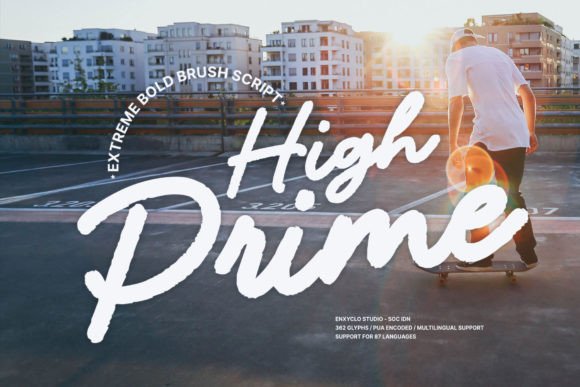
High Prime: A Bold Brush Font for Daring Designs
If you're looking for a font that commands attention and adds a modern edge to your work, High Prime might be exactly what you need. This brush display font is more than just a stylish choice—it's a powerful tool that can elevate your creative projects, branding efforts, and digital presence. With its confident, assertive look, High Prime is ideal for anyone who wants to make a strong visual statement.
When and Why to Use High Prime
High Prime shines in situations where boldness matters. Whether you're designing a logo, creating a social media post, or working on a website header, this font can help you stand out. Its brush-like strokes give it a dynamic feel, making it perfect for projects that need energy and movement.
For example, if you're a small business owner launching a new product, using High Prime on your packaging or marketing materials can create an immediate sense of excitement. It’s also great for entrepreneurs who want to make their brand feel fresh and innovative. The font doesn’t just look good—it feels like it’s moving, which can add a sense of urgency or creativity to your message.
Real-World Applications of High Prime
Let’s break down some practical scenarios where High Prime can make a difference:
- Logo Design: High Prime is a top choice for logos that need a strong, memorable identity. Its bold strokes and unique shape make it ideal for brands that want to feel modern and confident.
- Social Media Content: On platforms like Instagram or Facebook, High Prime can help your posts catch the eye. Whether it's a headline for a blog post or a caption for a promotional image, this font adds a professional yet edgy vibe.
- Web Headers: If you're building a website, using High Prime for your main headings can make your content more engaging. It works especially well for sites focused on design, tech, or lifestyle topics.
- Print Materials: From posters to business cards, High Prime brings a sense of motion and energy to printed designs. It’s a favorite among designers who want to make their work feel alive and dynamic.
Who Benefits from Using High Prime?
High Prime isn't just for graphic designers. It's a versatile font that can benefit a wide range of users:
For bloggers, using High Prime in headlines or section titles can make their content more visually appealing. For educators, it can add a modern touch to lesson plans or presentation slides. And for freelancers, it's a go-to font when they need to deliver something that stands out from the crowd.
Even hobbyists can find value in High Prime. If you're creating custom artwork, greeting cards, or DIY projects, this font can bring a professional finish to your work without requiring advanced design skills.
Considerations Before Using High Prime
Before jumping into using High Prime, it's important to think about how it fits your project. While it's a powerful font, it may not work in every situation. For instance, if you're designing something that needs a clean, minimal look, High Prime might feel too dramatic. It’s best suited for projects that benefit from a strong visual presence.
Also, consider the readability of the font. While High Prime is highly readable in larger sizes, it may not be ideal for long blocks of text. That’s why it’s often used for headlines, titles, or short phrases rather than full paragraphs.
Don’t be afraid to pair it with other fonts for balance. For example, using a simple sans-serif font for body text while reserving High Prime for headings can create a nice contrast that draws attention without overwhelming the viewer.
Final Thoughts on High Prime
High Prime is more than just a font—it's a design choice that can add personality, energy, and professionalism to your work. Whether you're a creator, entrepreneur, or everyday user, this brush display font offers a way to express yourself with confidence and style. By understanding where and how to use it, you can unlock its full potential and make your projects stand out in a crowded digital world.